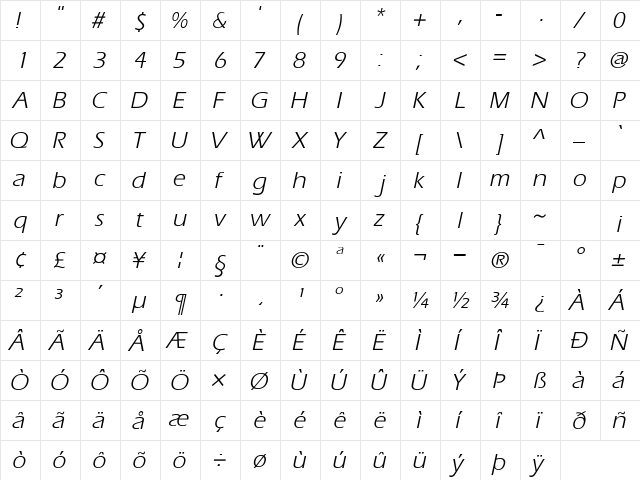
AquilineBook Italic Font Preview
AquilineBook Italic
AquilineBook Italic Font Details
Design Context for AquilineBook Typeface
AquilineBook offers clean, dependable letterforms without strong stylistic allegiance, making it a practical choice for designers who need flexibility. The dynamic lean of this cut emphasises speed and emphasis in any layout.
Pro Tip: Try AquilineBook for annotation and caption copy alongside an upright companion — the contrast in angle creates a dynamic but ordered typographic system.